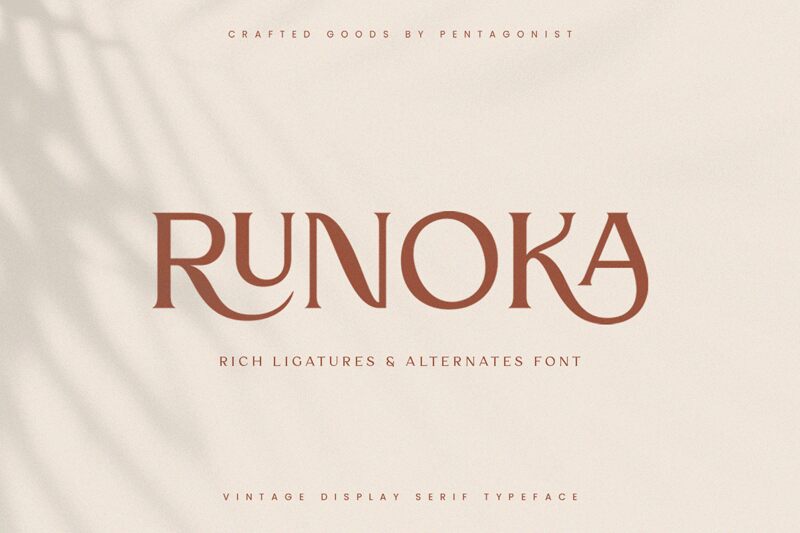
Runoka font by Pentagonistudio is a distinct serif typeface that exudes elegance and sophistication. With its meticulously crafted curves and refined serifs, Runoka stands out as a strikingly beautiful option for designers seeking both traditional charm and modern appeal. The font's strong lines and balanced proportions make it ideal for projects that demand clarity and style.
Suitable for headlines, editorial designs, or branding projects, Runoka adds an element of classic beauty to any visual composition. Its versatility makes it perfect for various design contexts where a touch of refinement is required.